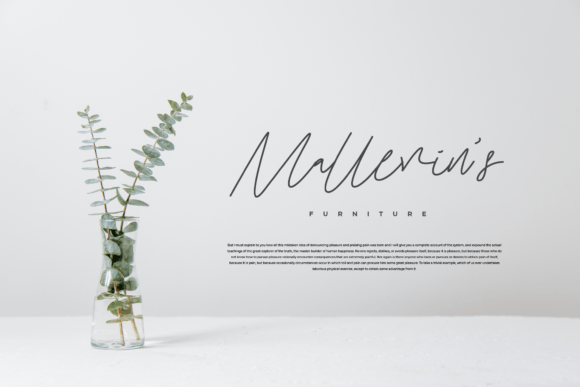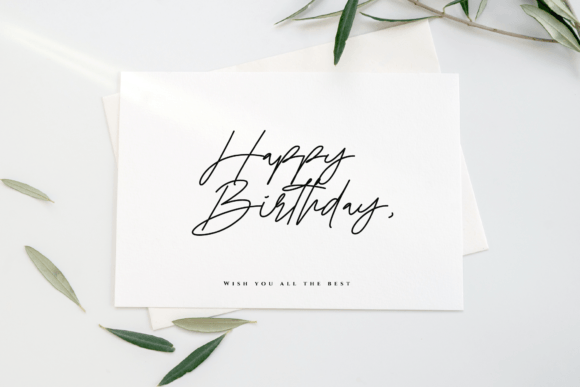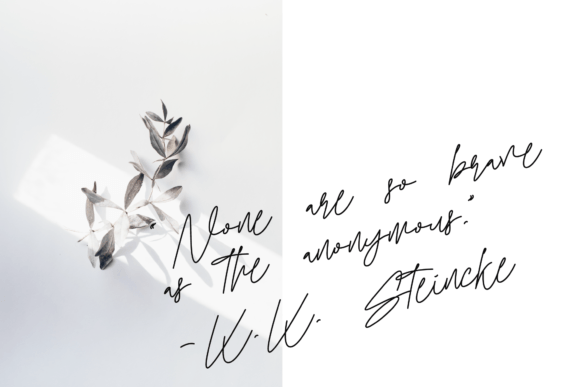
Introduction to Cruliosta Font
Have you ever been stuck on a creative project, staring blankly at your computer screen, searching for the perfect font to bring your vision to life? I know I have. But then, you stumble upon that one font that makes everything click – and that’s exactly what happened when I discovered the stunning Cruliosta Font.
With its elegant, handwritten script style, Cruliosta Font is the perfect design resource for any creative project. Whether you’re working on a high-quality logo, designing invitations, or crafting social media posts, this beautiful font is sure to elevate your work and leave a lasting impression. And the best part? You can download it for free, giving you the freedom to experiment and push the boundaries of your creativity.
Key Features of Cruliosta Font
- High-quality, professional font perfect for creative projects requiring a unique touch.
- Unique design featuring a transparent background, allowing for seamless integration with any background image or color.
- Available in multiple font sizes and resolutions, ensuring compatibility with various design software and printing requirements.
- Designed to be highly legible, making it ideal for use in a variety of creative projects, from logos to brochures.
- Includes a range of weights and styles, providing designers with the flexibility to customize their font to suit their specific needs.
- Perfect for designers and artists looking for a high-quality, free design resource to enhance their creative projects.
Honest Review: Cruliosta Font
As a designer, I’m always on the lookout for high-quality design resources that can elevate my creative projects. Recently, I stumbled upon the Cruliosta Font, and I must say it’s been a great addition to my toolkit.
One of the things that stood out to me about the Cruliosta Font is its versatility. It’s perfect for a wide range of creative projects, from logos and branding to digital displays and print materials.
Here are some of the things that work well:
- ✨ High-quality design that looks great on both digital and print materials
- ✨ Transparent background, making it easy to work with and customize
- ⚠️ Limited character set, which may not be suitable for longer texts
Overall, I’m impressed with the Cruliosta Font. It’s a great design resource that’s perfect for adding a touch of elegance and sophistication to your creative projects. With its high-quality design and transparent background, it’s a must-have for any designer looking to elevate their work.
Tips for Getting the Most Out of Cruliosta Font
Experiment with different font sizes and styles to create visual interest in your design. Combine Cruliosta Font with other design elements to add depth and texture to your project.
Use Cruliosta Font for creative projects such as logos, infographics, and social media graphics. Its high-quality design makes it perfect for presentations, reports, and other business materials.
Alternatives to Cruliosta Font
Montserrat is a high-quality, sans-serif font ideal for creative projects requiring a clean and modern design. It’s available for free download and can be used as a design resource for various purposes.
Montserrat is similar to Cruliosta Font in its modern and sleek appearance but offers more versatility and is widely used in various design contexts.
Open Sans is a popular, free font that provides a high-quality design resource for designers. It features a transparent background and is suitable for use in creative projects, websites, and mobile applications.
Open Sans is more versatile and offers a wider range of font styles compared to Cruliosta Font, making it a great alternative for designers requiring a high-quality font.
Lato is a high-quality, sans-serif font that is ideal for creative projects requiring a clean and modern design. It’s available for free download and can be used as a design resource for various purposes.
Does the Cruliosta Font have a transparent background?
Yes, the Cruliosta Font has a transparent background, making it easy to use in designs with complex backgrounds or images. This feature is especially useful for designers who want to create visually appealing and professional-looking designs.